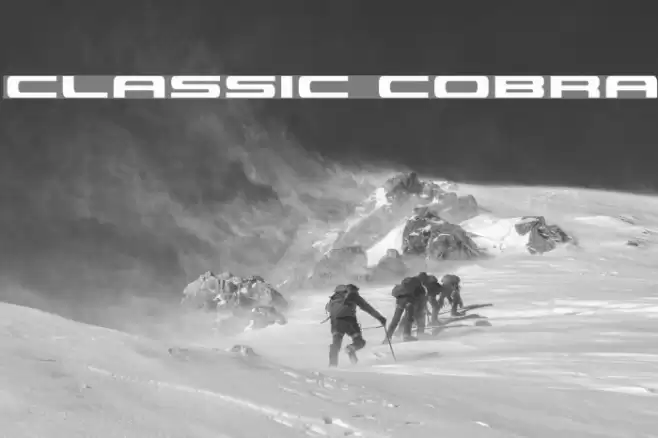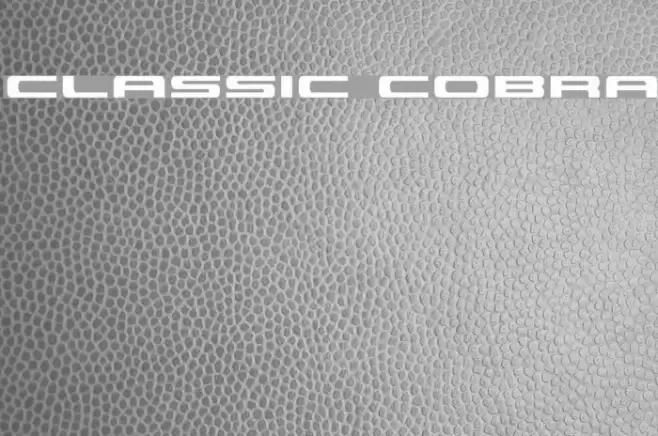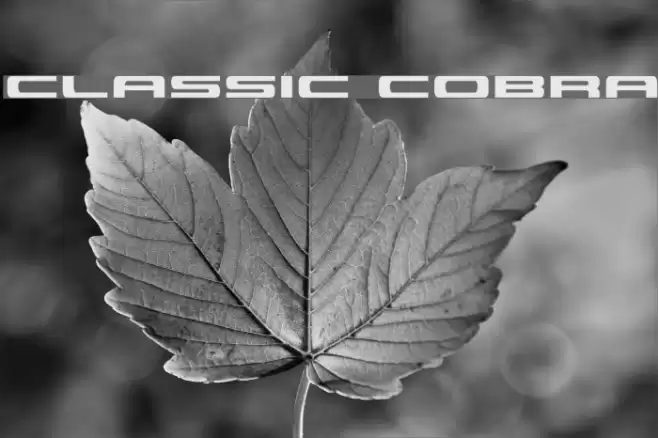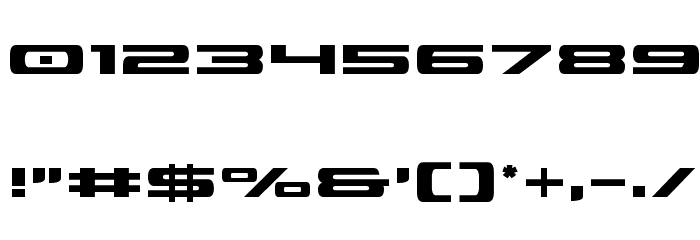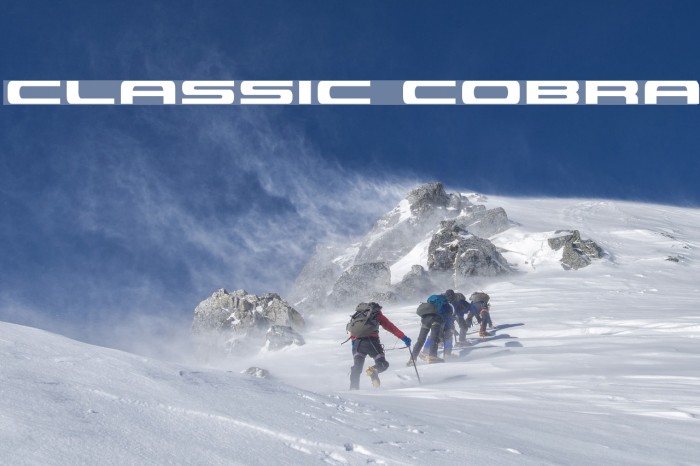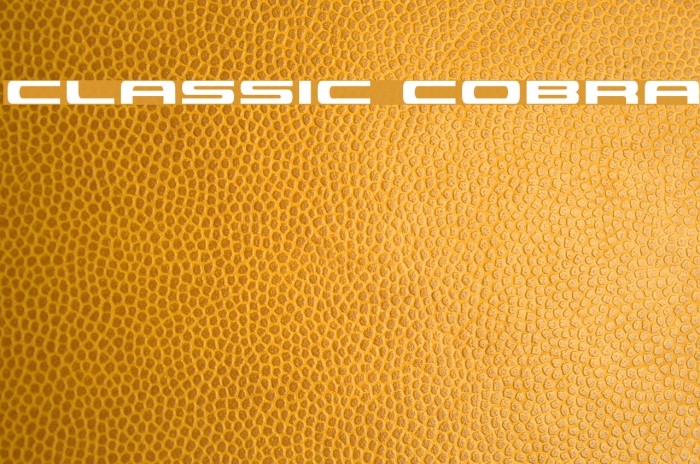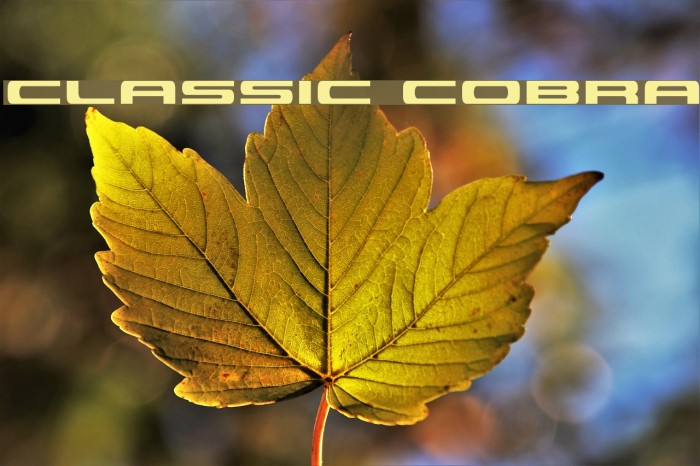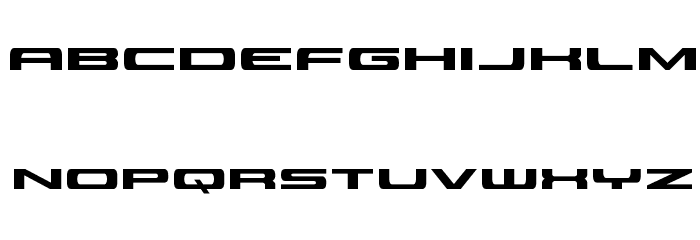
Classic Cobra Font
Classic Cobra Description
This font features a bold and futuristic design with a strong geometric influence. The characters are wide and have a distinct angularity, giving them a modern and tech-inspired appearance. The uppercase letters are particularly striking, with sharp edges and a consistent stroke width that conveys strength and precision. The numbers and special characters maintain this aesthetic, ensuring a cohesive look across all glyphs. The font's style is ideal for projects that require a bold statement, such as technology branding, sports team logos, or modern advertising campaigns.
A bold, futuristic font with geometric and angular design elements from Uncategorized fonts.
- Proposed Projects: Ideal for technology branding, sports logos, and modern advertising.
- Width: Expanded
- Use Case: Logos, Headlines